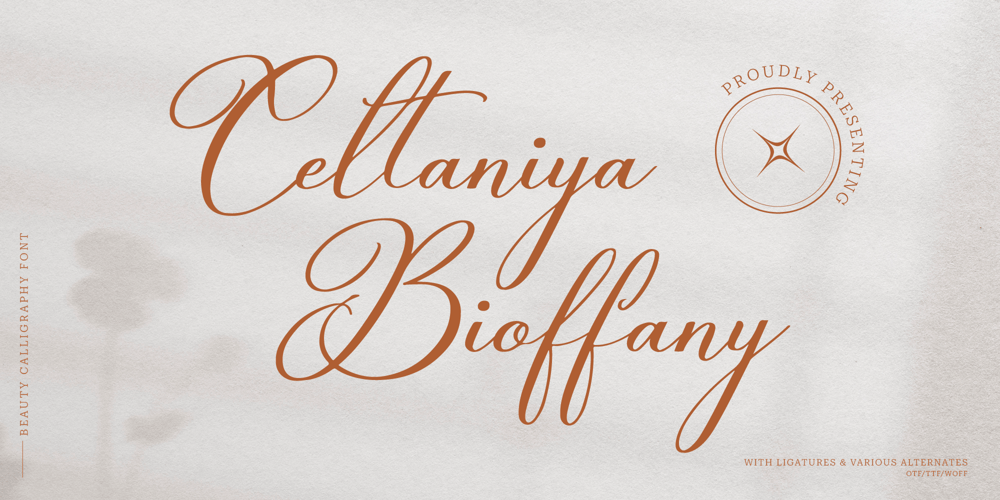
Celtaniya Bioffany
Celtaniya Bioffany font
Celtaniya Bioffany Font Family was designed by published by Tini Fitriani. Celtaniya Bioffany contains 2 styles and family package options. Celtaniya Bioffany | Calligraphy Script, from Gracetypestudio, suitable for any projects such as: logos, branding projects, homeware designs, product packaging, mugs, quotes, posters, shopping bags, t-shirts, book covers, name card, invitation cards, greeting cards, label, photography, watermark, special events, and all your other lovely projects that need a Calligraphy Script taste.========================================================================What’s Included : Regular and Italic Web Font Standard glyphs Alternate and Ligature Works on PC & Mac Simple installations Accessible in the Adobe Illustrator, Adobe Photoshop, Adobe InDesign, even work on Microsoft Word and Other Software. PUA Encoded Characters – Fully accessible without additional design software. Fonts include multilingual support Hope you enjoy with our font!